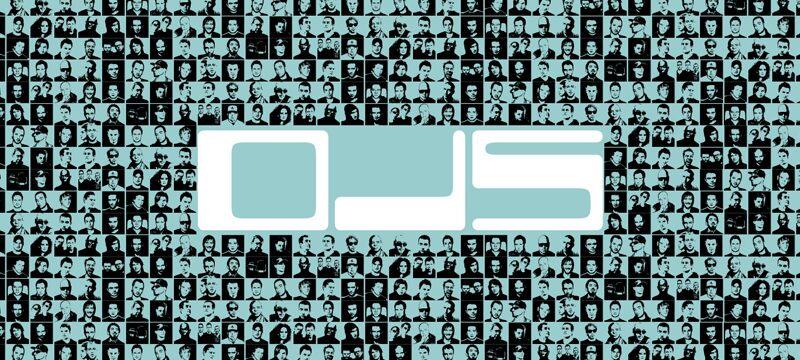
Djs Symbols by Carlos Matteoli is a free portrait dingbat font depicting DJs and electronic musicians in stark silhouette. Faces emerge through clipped highlights, deep shadows, and sharply simplified features. The likenesses feel graphic and immediate.
It can turn a club flyer into a compact portrait gallery, with the symbols serving as featured artwork rather than ordinary lettering. That same stencil-like treatment suits album packaging, event merchandise, and music websites built around DJ culture and electronic performance.